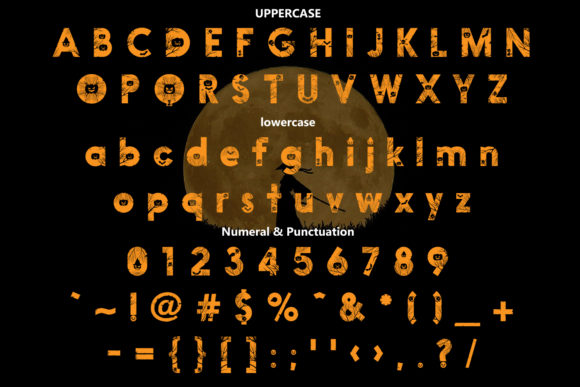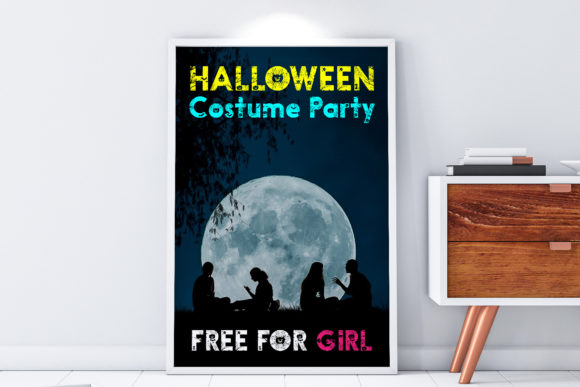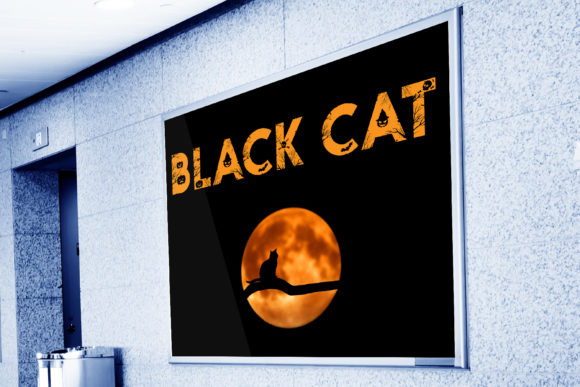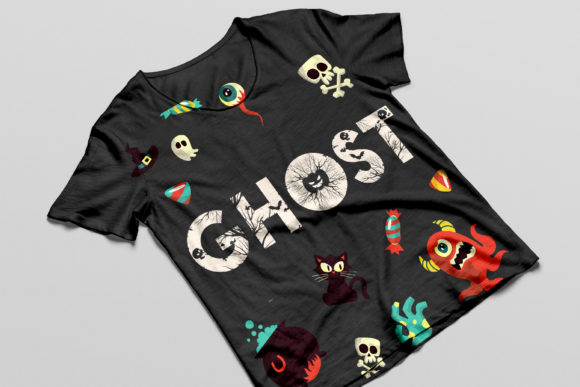
Introduction to Penari Font Font
Fonts play a crucial role in design, and the Penari Font font is a typeface that brings both character and versatility to any project. Whether you’re working on a branding project, a website, or a print design, the Penari Font font offers a unique style that can elevate your work.
Penari is a decorative typeface with spooky letters.
It is perfectly suited for Halloween design projects .
Key Features of Penari Font Font
Why Choose Penari Font Font?
The Penari Font font is more than just a typeface – it’s a design tool that helps you communicate your message with style and clarity. Its unique character set and versatile design make it suitable for a wide range of applications, from elegant invitations to bold headlines.
With its carefully crafted letterforms and balanced proportions, the Penari Font font ensures readability and visual appeal across all mediums.
What makes Penari Font font special?
The Penari Font font stands out with its unique design, exceptional readability, and versatility across various design applications.